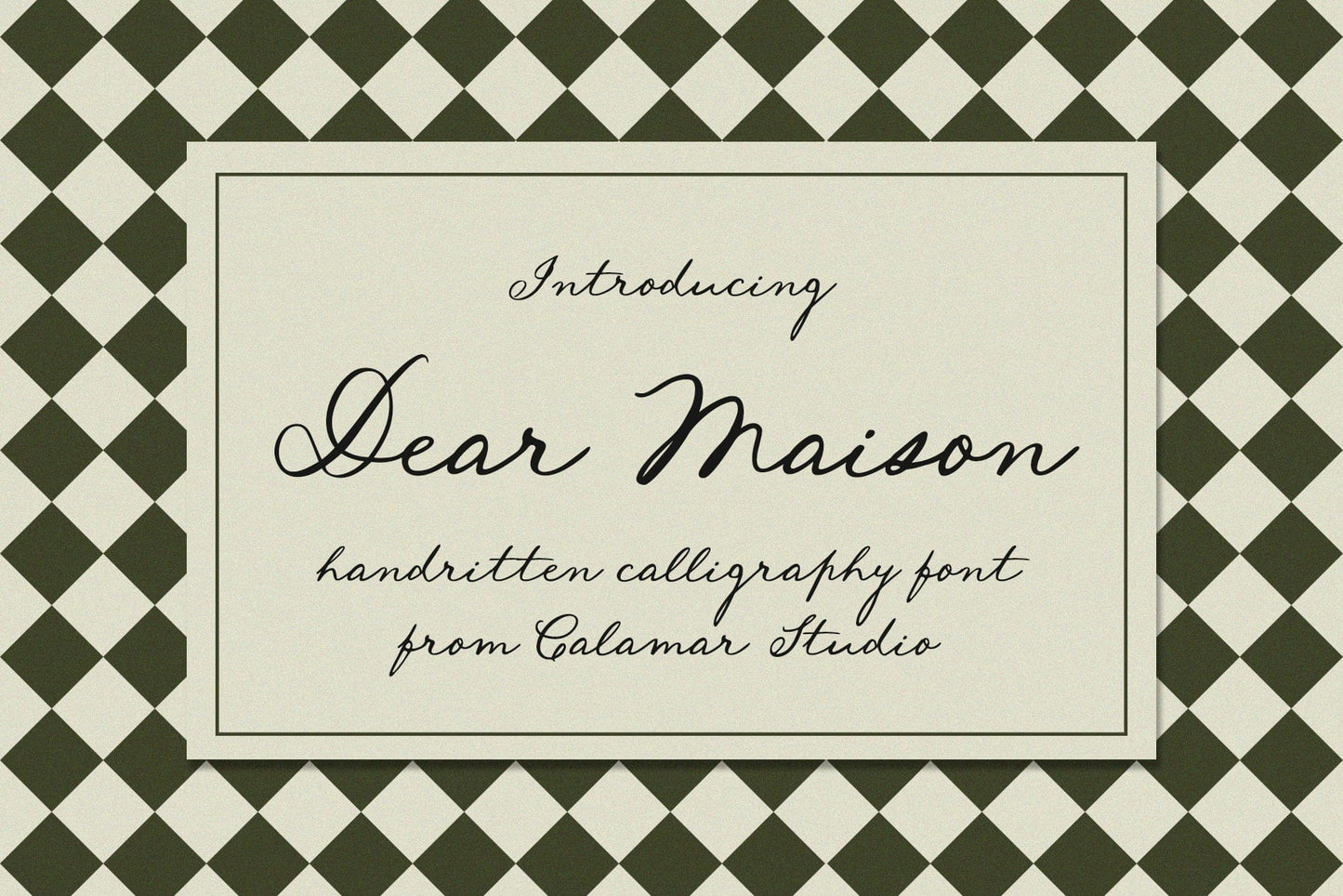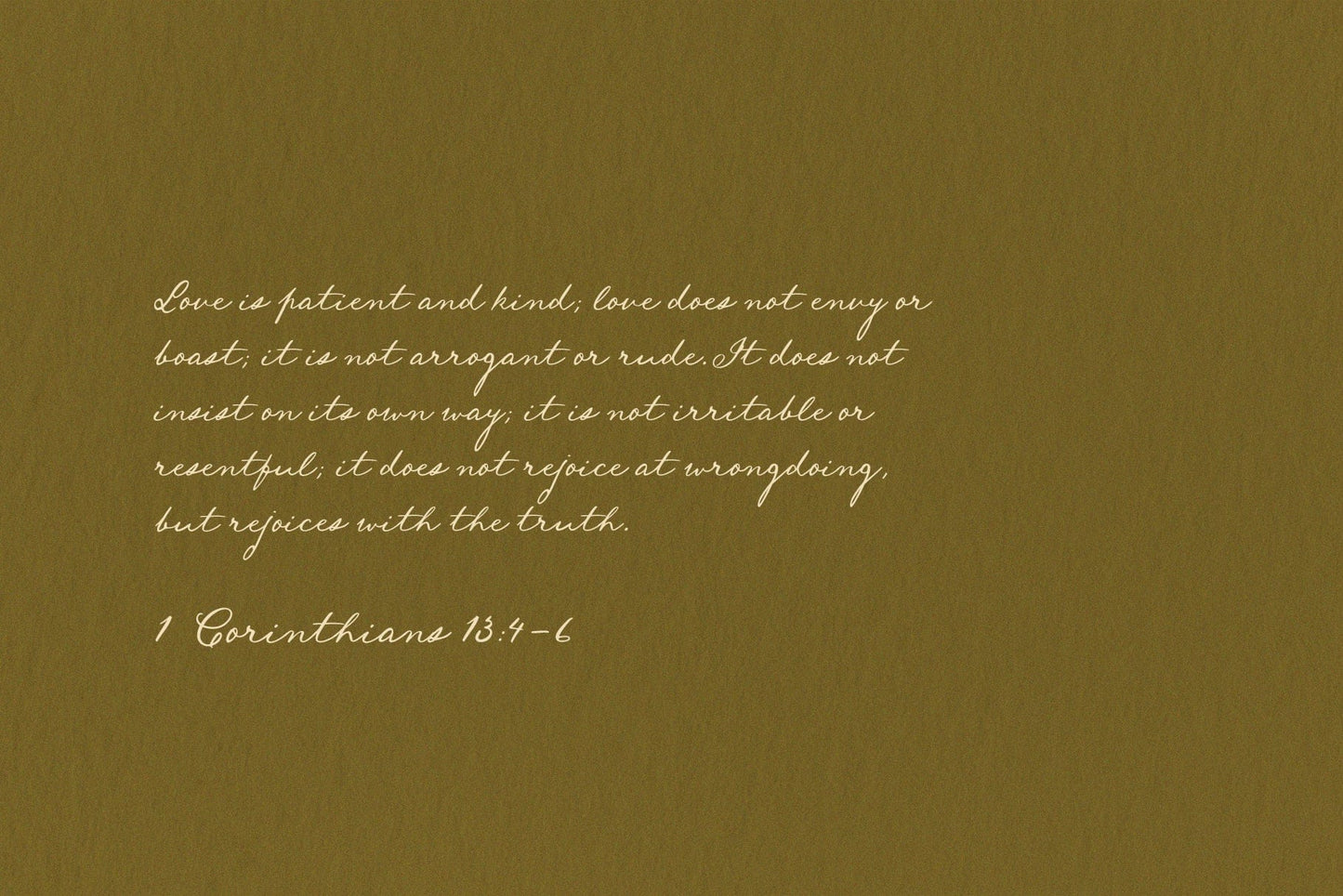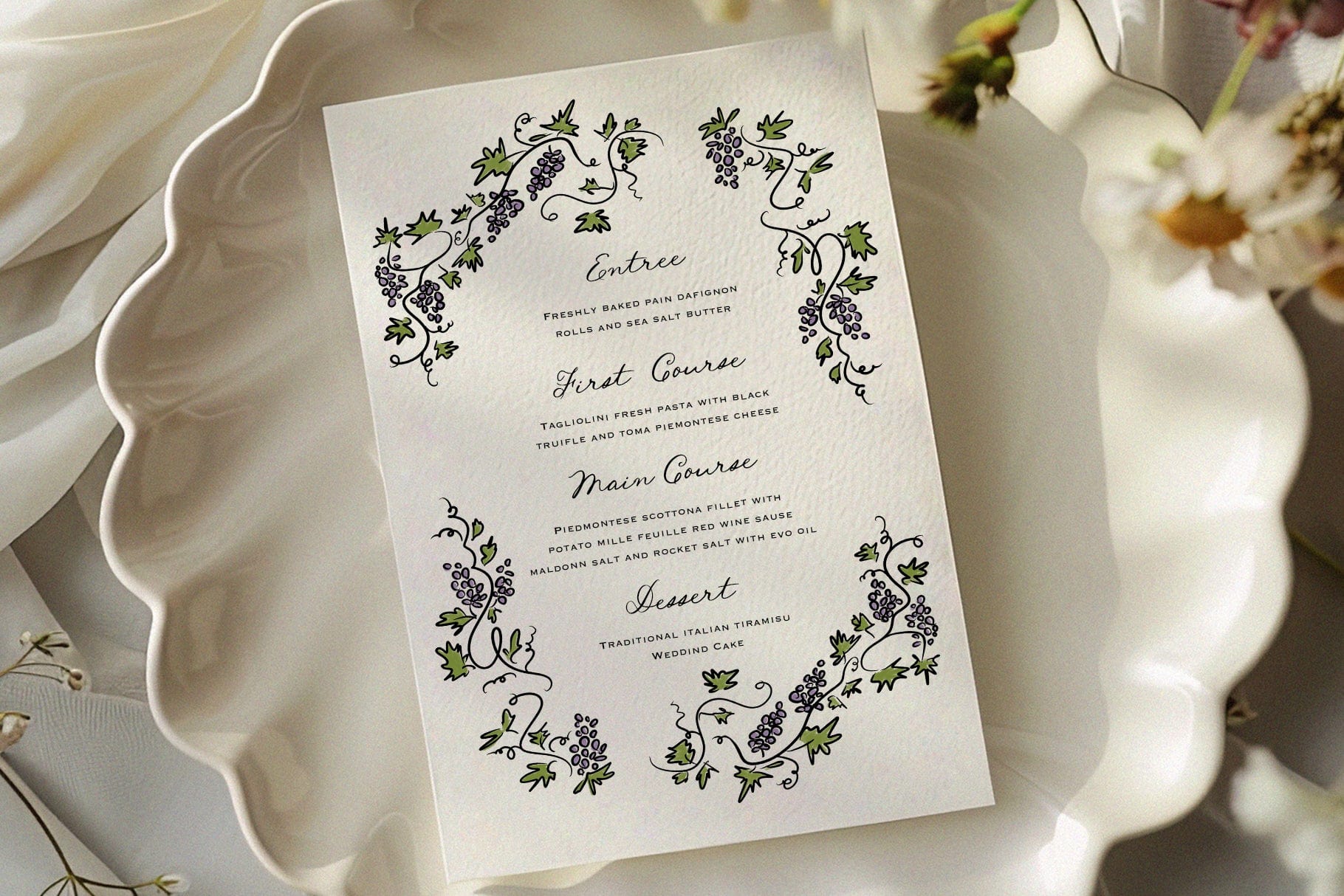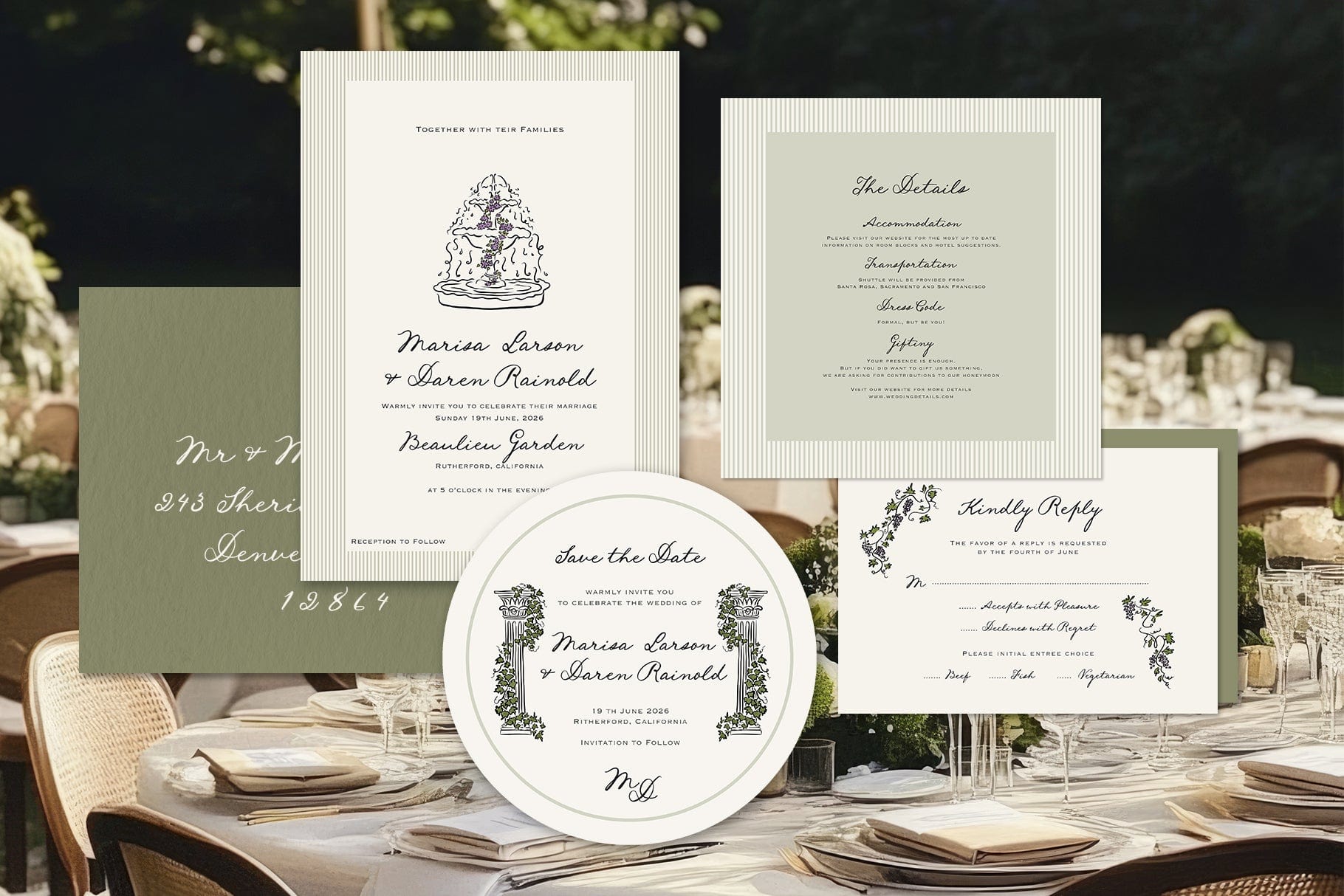
An elegant handwritten calligraphy font called 'Dear Maison' mimics a fluid, cursive handwriting, giving it a personal and graceful touch. It feels both nostalgic and contemporary, making it versatile for romantic wedding stationary and branding.
This font comes with a full set of Uppercase and Lowercase Basic Characters, Numbers, Punctuation and some ligatures and alternatives.